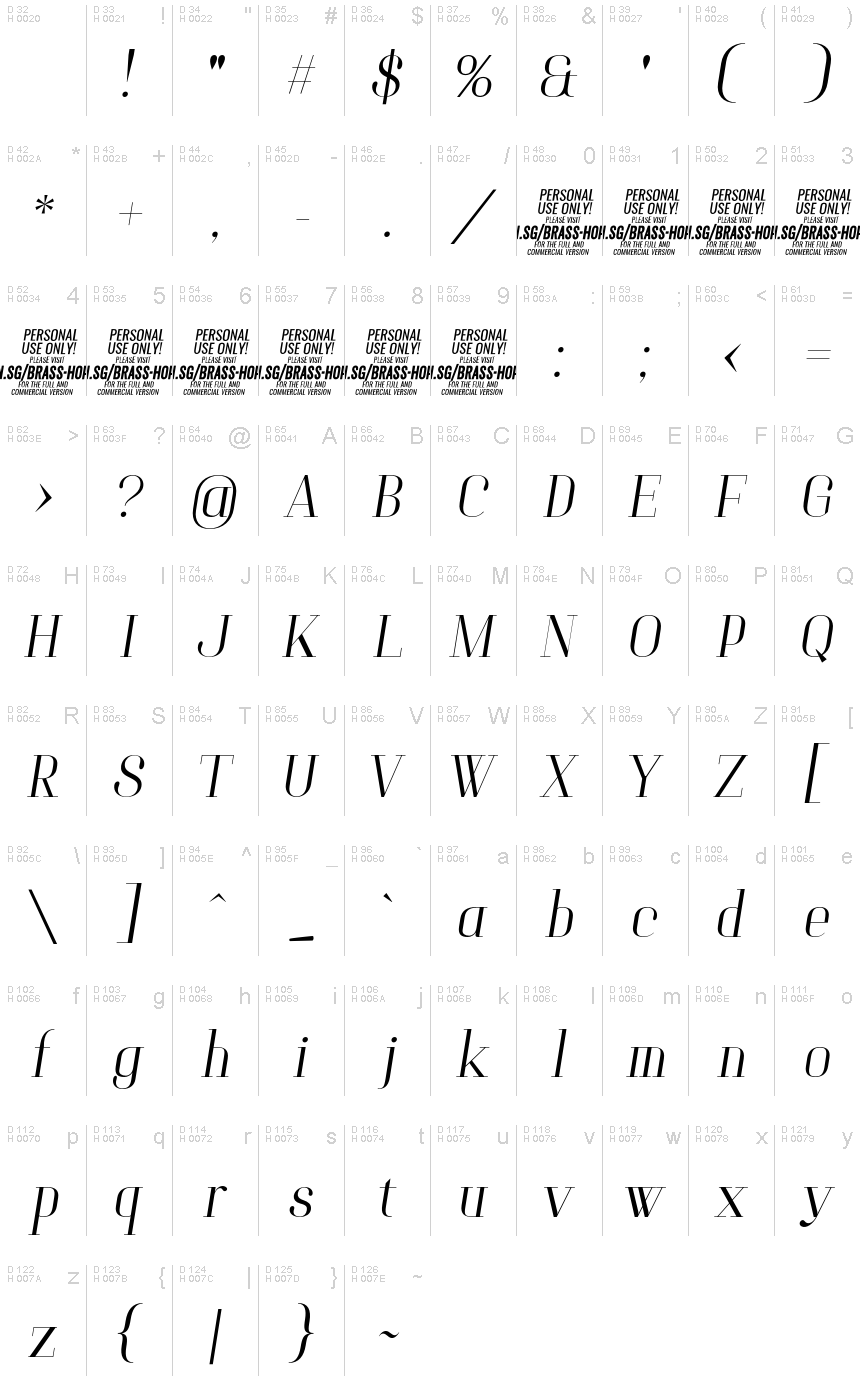
Brass Hopper Head PERSONAL Thin Italic
Brass Hopper Head Thin Italic font is a striking serif typeface designed by Mans Greback that captures the essence of structural elegance. Its slender forms and refined curves evoke a sense of sophistication, making it ideal for contexts that demand both clarity and artistry, such as art exhibitions or architectural presentations. The graceful slant adds a dynamic flair while maintaining stability, allowing the text to convey creativity without sacrificing legibility.
This unique font also lends itself perfectly to modern branding, editorial layouts, and high-end marketing materials, where its versatility shines through various styles and expressions. With Brass Hopper Head's ability to adapt seamlessly within its family, designers can achieve tailored typographic solutions that resonate with their vision.